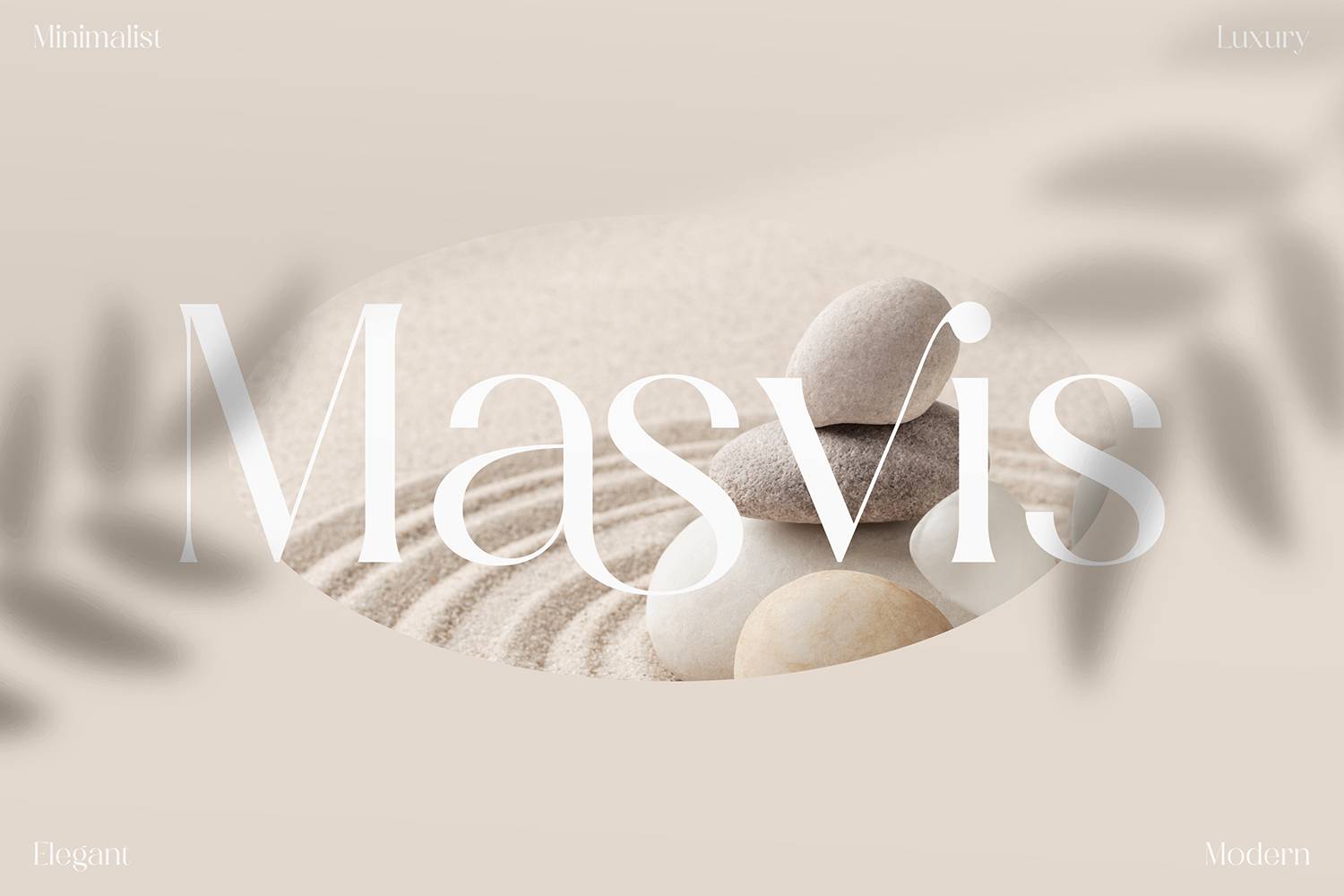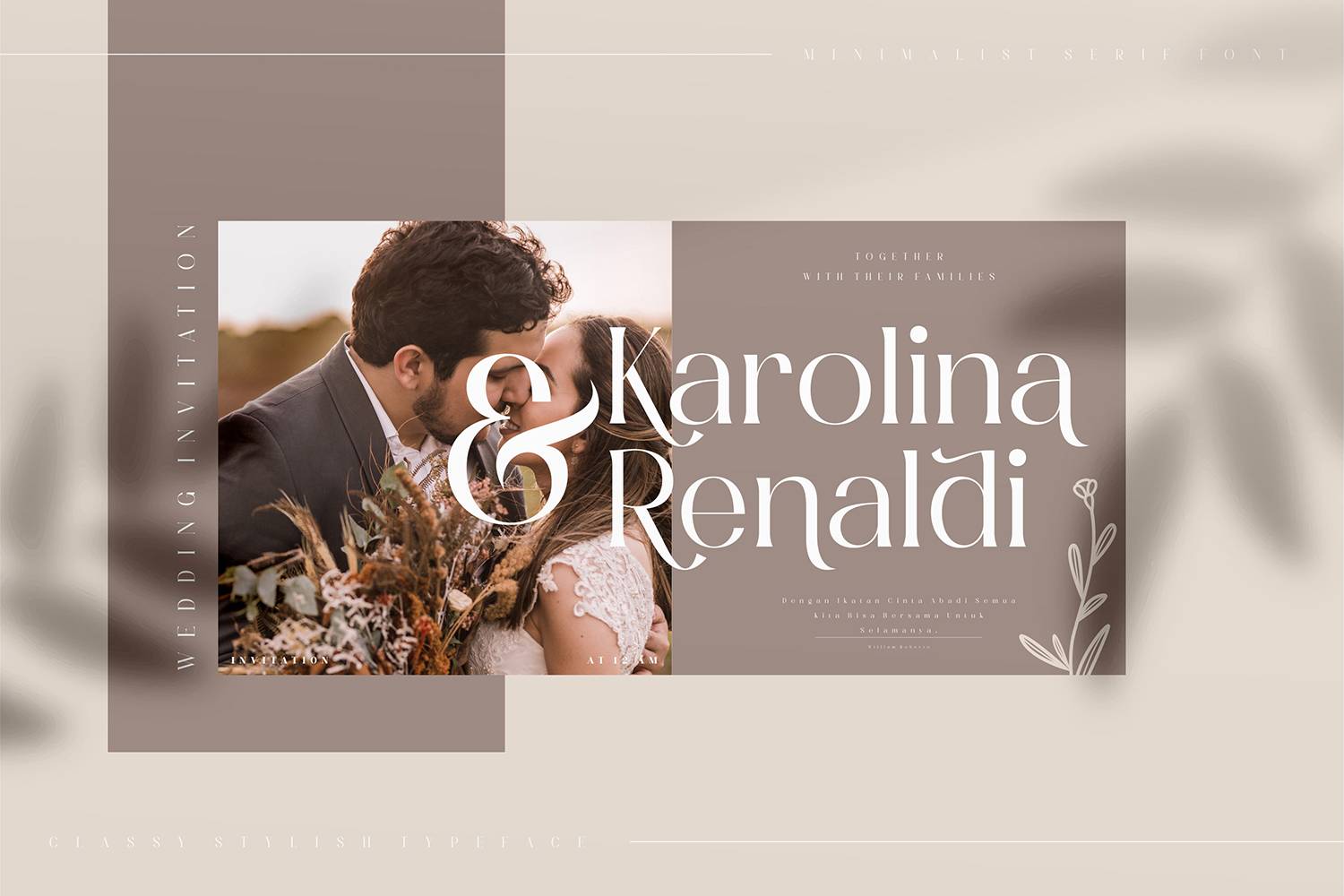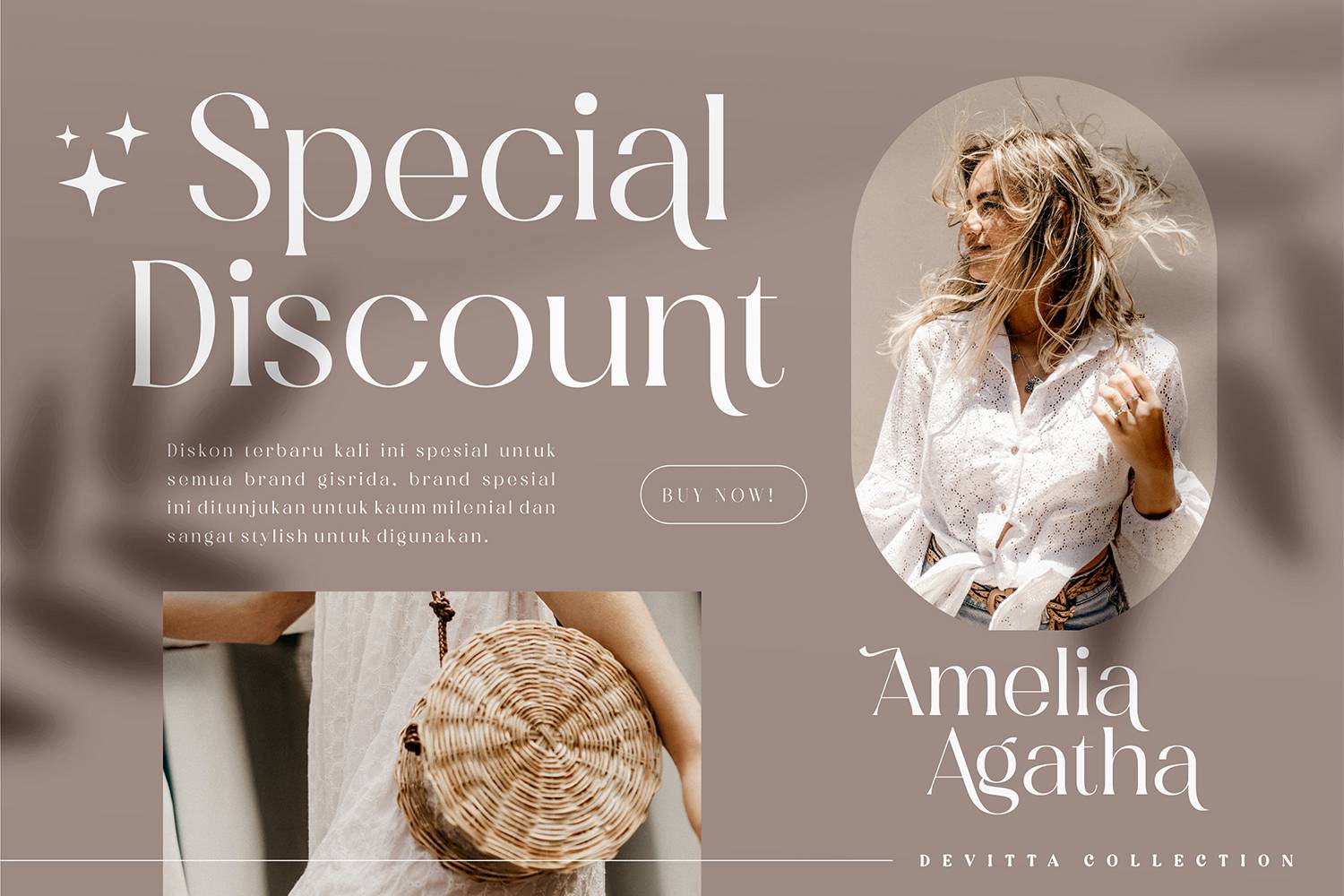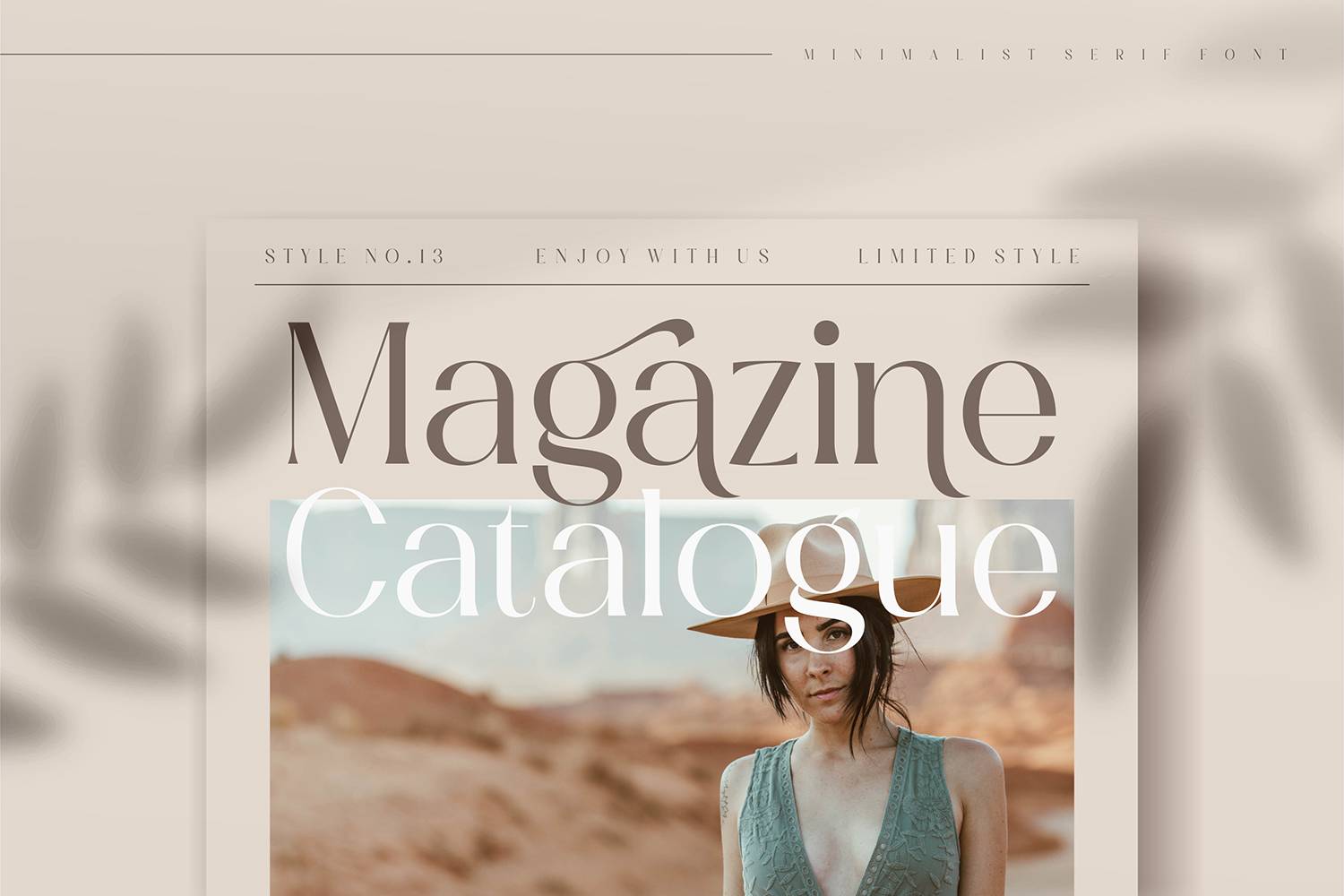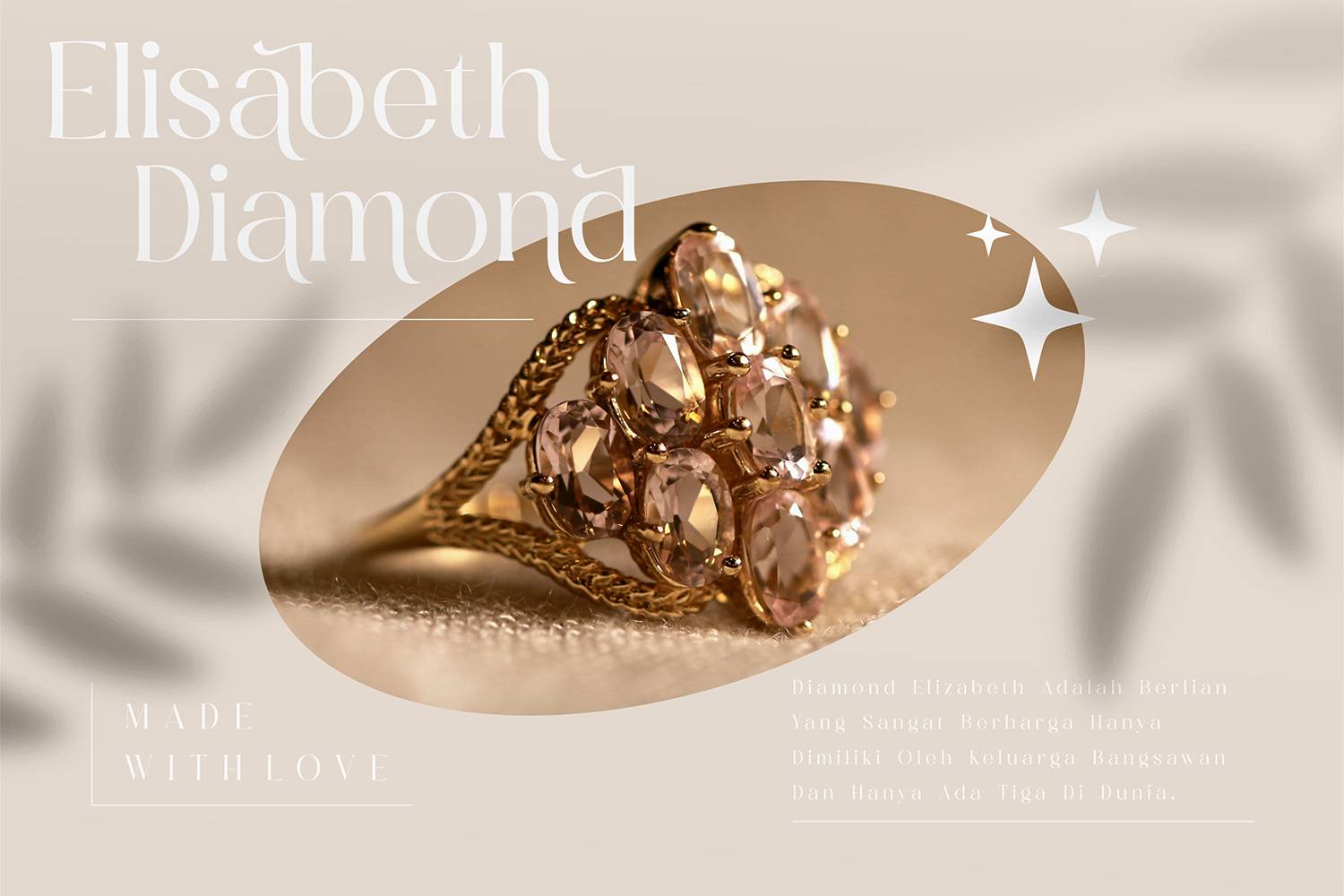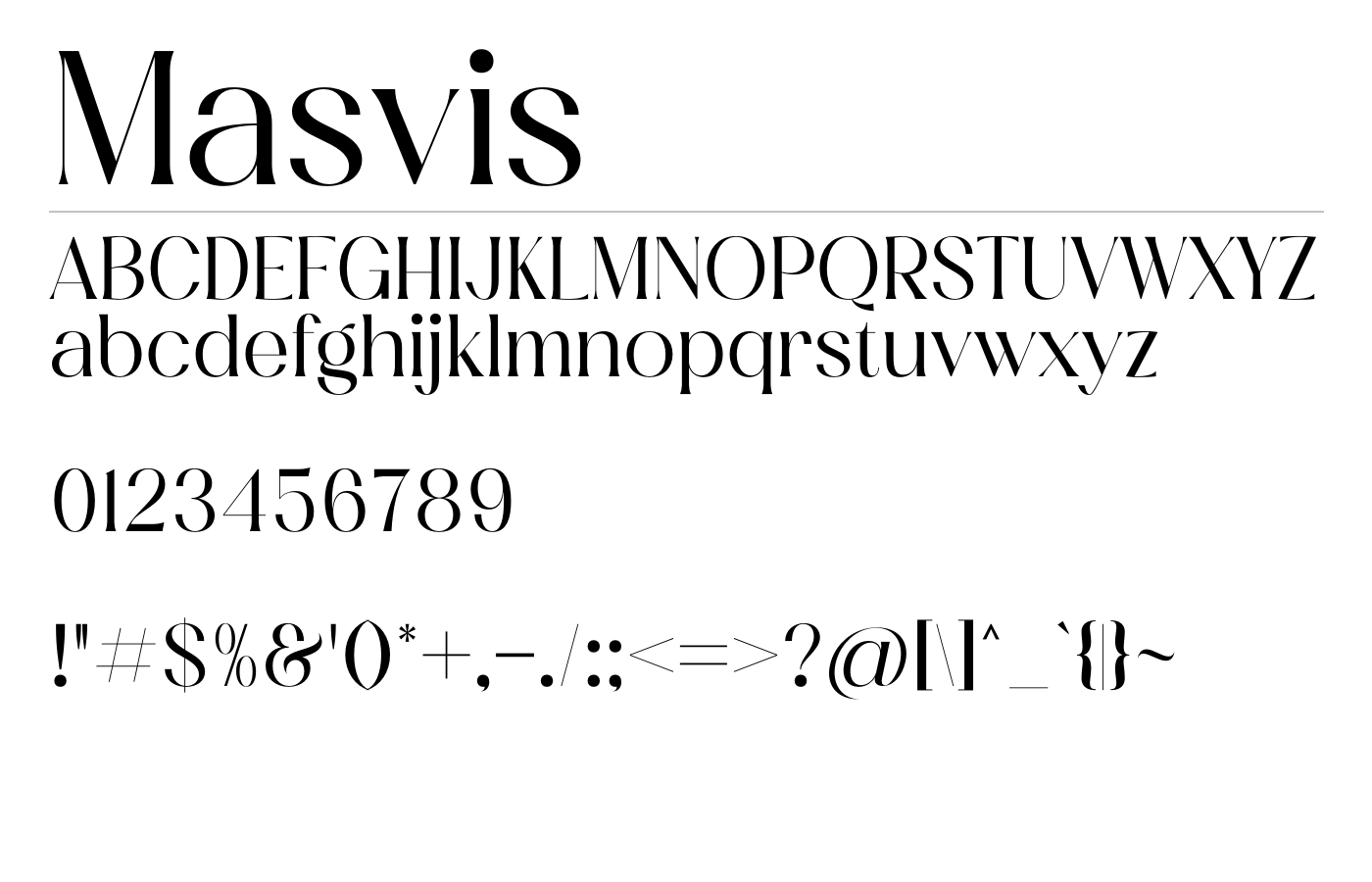
Masvis Minimalist Font is a sleek, modern serif with high contrast between thick and thin strokes that gives it an elegant, sophisticated look. Its tall, narrow letters and distinctive details, like the sharp serifs and refined curves, make it perfect for luxury branding, editorial headlines, and stylish packaging. This font’s minimalist yet classic vibe communicates professionalism and contemporary elegance.
Masvis Minimalist Font
About Masvis Minimalist Font